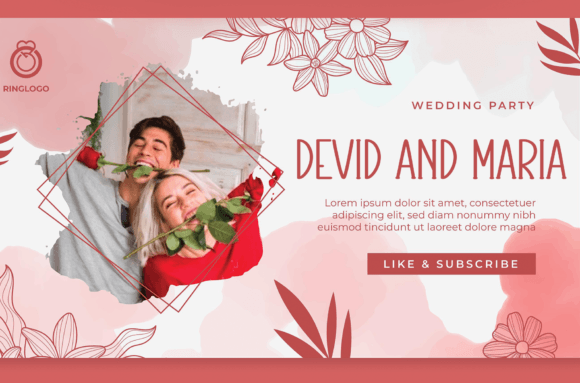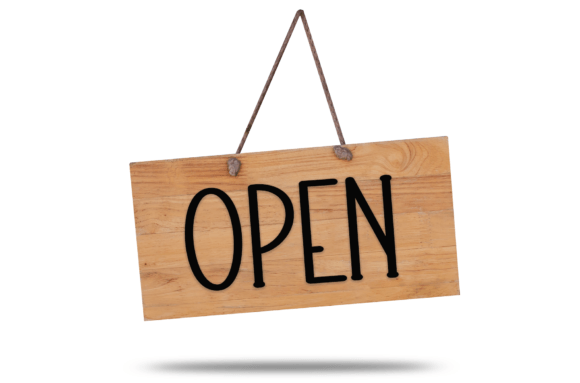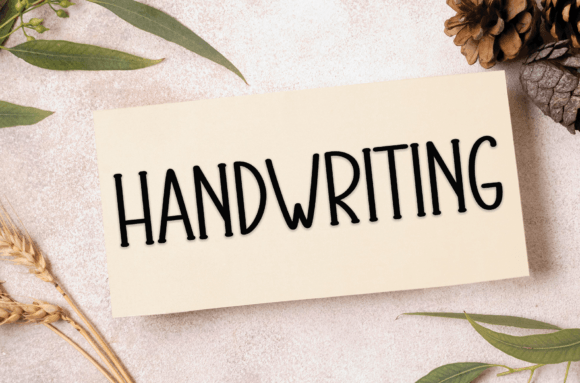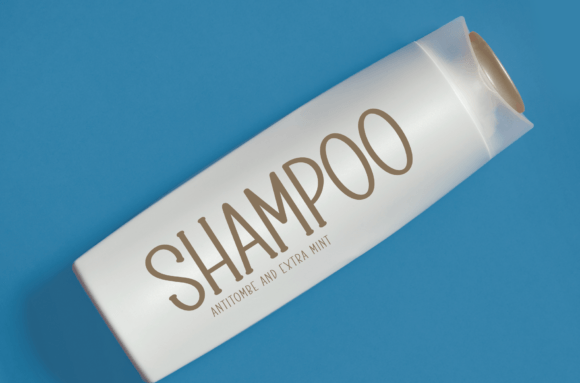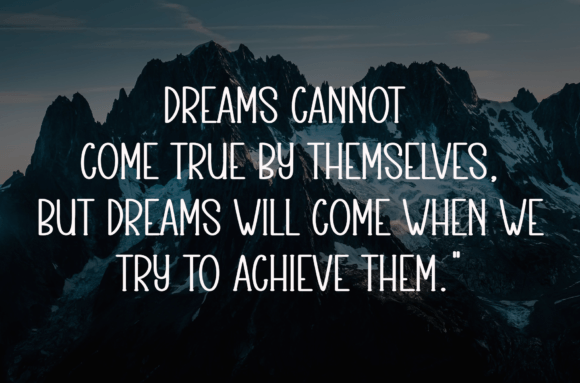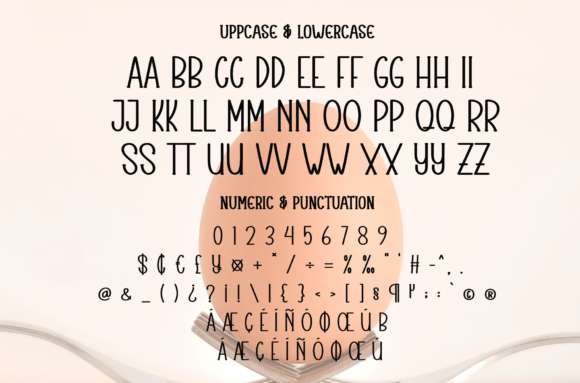
Introduction to Chicken Eggs Font
Chicken Eggs is a sweet and friendly handwritten font.
Fresh and neat, this font is ideal for writing wedding invitations, cards, or any other design that might need a fun touch .
Chicken Eggs Font offers exceptional quality and versatility, making it a valuable addition to your design toolkit. Whether you’re creating for personal projects or commercial use, Chicken Eggs Font delivers professional results.